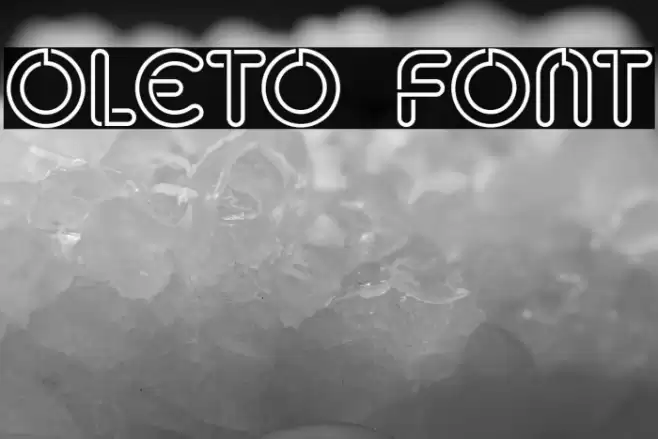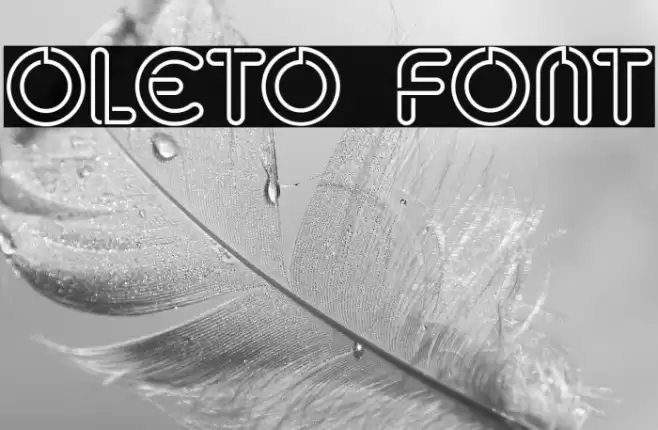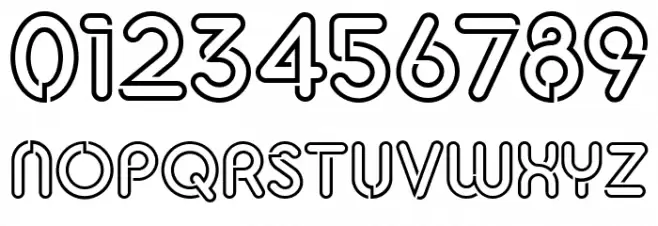
Oleto Font
Oleto Description
This font features a unique, double-line design that creates a hollow effect, giving it a modern and futuristic appearance. The characters are bold and rounded, with a consistent thickness throughout, which enhances readability while maintaining a distinct style. The uppercase and lowercase letters share a similar structure, ensuring uniformity across text. Numbers and special characters are designed with the same double-line technique, making them cohesive with the alphabet. This font's geometric and symmetrical nature makes it stand out, ideal for projects that require a contemporary and innovative look.
A modern, double-line font with a futuristic and geometric style from Regular fonts.